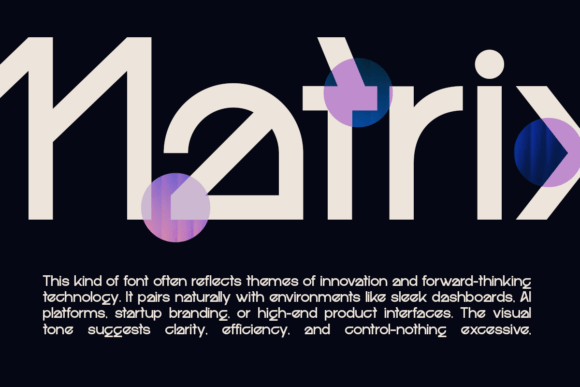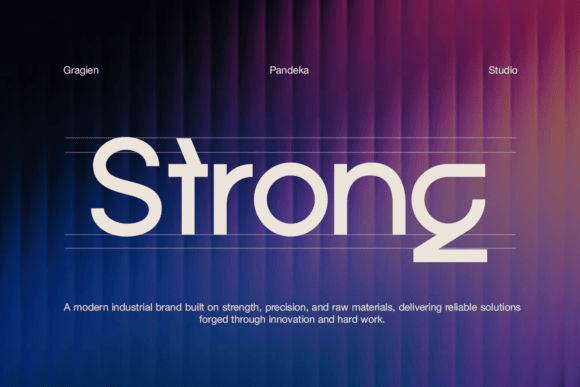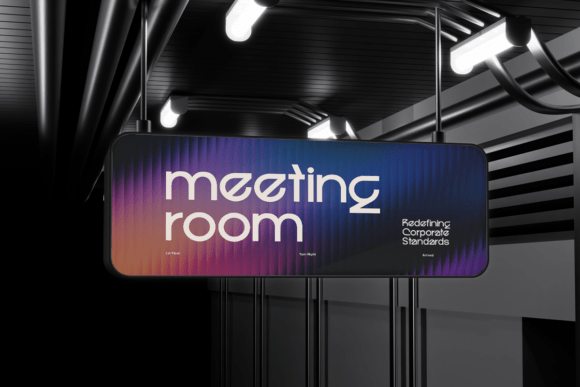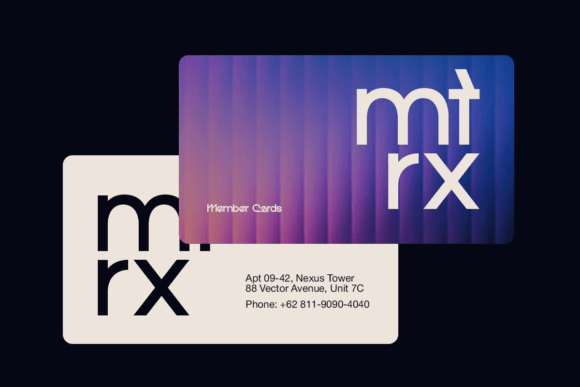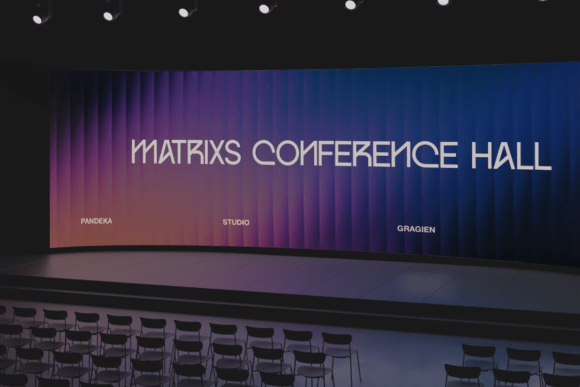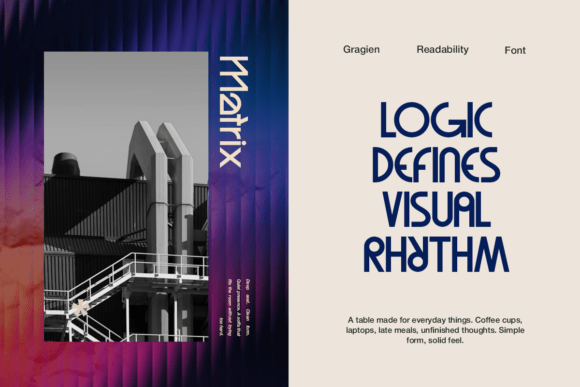
Introducing Gragien Font: The Epitome of Modern Corporate Design
In the realm of typography, a font can make or break the visual identity of a brand. For businesses and designers seeking a clean, modern, and professional look, Gragien Font emerges as a stellar choice. This geometric sans serif font is meticulously crafted to exude a strong corporate presence, making it an ideal selection for brands aiming to project clarity, efficiency, and innovation.
Design Characteristics of Gragien Font
Gragien is built on the principles of precise shapes, smooth curves, and balanced proportions. These design elements combine to create a font that is not only aesthetically pleasing but also highly functional. The clean lines and geometric shapes lend a modern and sleek appearance, while the smooth curves add a touch of elegance and approachability. The balanced proportions ensure that each character is harmonious with the others, creating a cohesive and visually appealing text.
The Ideal Choice for Corporate and Tech Branding
The minimal yet distinctive character of Gragien makes it particularly suited for brands that want to appear professional, innovative, and highly structured. In the competitive world of corporate branding, standing out while maintaining a professional demeanor is crucial. Gragien achieves this delicate balance, offering a unique yet familiar look that captures the essence of modern business.
For tech branding, where innovation and forward-thinking design are paramount, Gragien’s geometric and clean design speaks volumes. It conveys a sense of cutting-edge technology and reliability, essential qualities for tech companies looking to establish a strong brand identity.
Versatility Across Various Applications
Gragien’s versatility is one of its most compelling features. This font is perfectly suited for a wide range of applications, including corporate identity, tech branding, dashboards, presentations, and digital interfaces. Its excellent readability ensures that messages are conveyed clearly and effectively, whether in print or digital formats.
Technical Specifications of Gragien Font
Gragien comes with a single style, Regular, which is versatile enough to serve various design needs. It includes:
- Uppercase and lowercase letters for comprehensive text formatting.
- Numbers for numerical data representation.
- Punctuation marks for clear and effective communication.
- Multilingual support, making it a fantastic choice for global brands or projects with diverse linguistic requirements.
Why Choose Gragien Font?
Choosing Gragien Font for your design project comes with several benefits:
- Professional Appearance: Its geometric and balanced design lends a professional look to any brand or project.
- Readability: Gragien ensures that your text is clear and easy to read, across various devices and platforms.
- Versatility: Its comprehensive character set and single, yet versatile style, make it suitable for a multitude of applications.
- Modern Aesthetic: For projects that demand a contemporary look, Gragien’s sleek design is unmatched.
Gragien Font stands out in the world of typography as a beacon of modern corporate design. Its geometric sans serif style, precise shapes, and balanced proportions make it an excellent choice for brands and designers looking for a professional, innovative, and highly structured visual identity. With its wide range of applications, from corporate identity to digital interfaces, and its technical specifications including multilingual support, Gragien is poised to become a go-to font for projects demanding clarity, efficiency, and a forward-thinking design.
Whether you’re a designer looking for the perfect font for your client’s brand or a business owner seeking to elevate your company’s visual identity, Gragien Font is an exceptional choice that promises to deliver a strong corporate presence and a sleek visual tone.